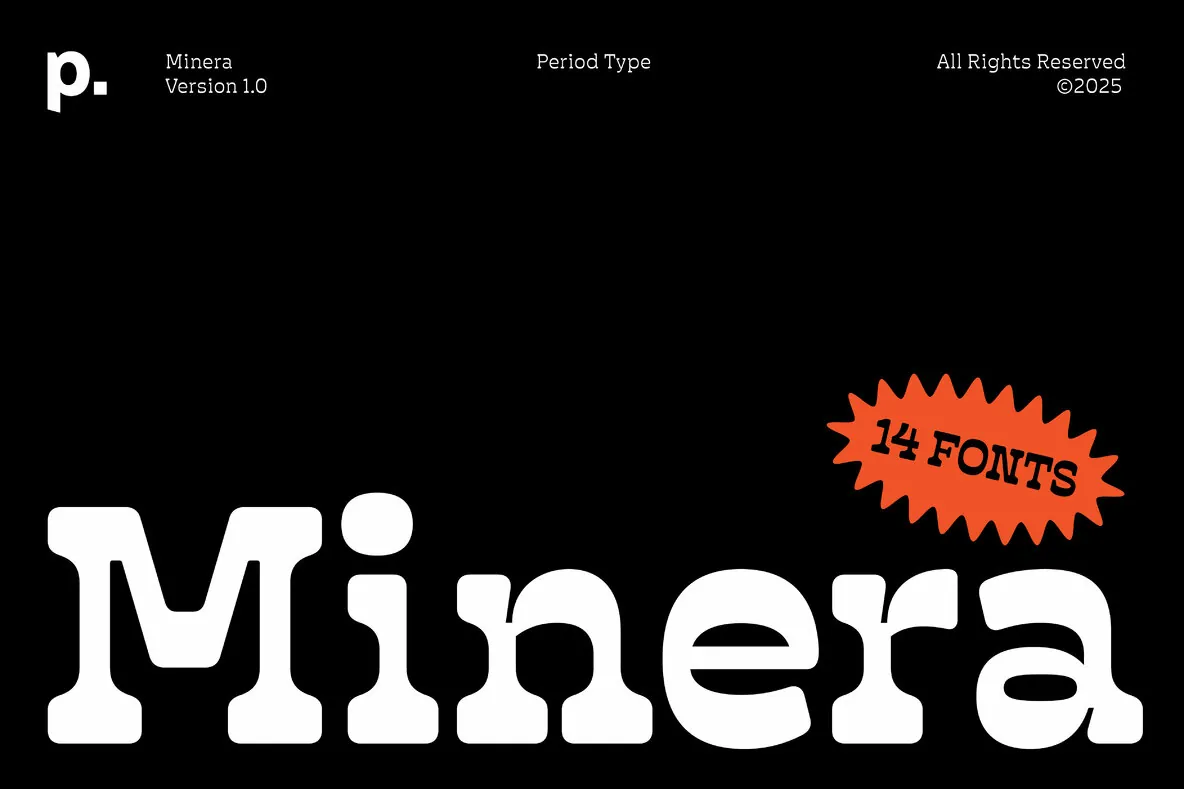
Minera Font
Minera: Dynamic Reverse-Contrast Slab Serif
Minera is a reverse-contrast slab serif designed to introduce a playful and engaging element to any design project. As a display typeface, it exudes a fun, friendly, and casual demeanor, making it perfect for branding, packaging, editorial layouts, and menus. Its distinct appearance guarantees that your message will command attention.
Minera is designed for a global audience, supporting 278 languages, which makes it versatile for multilingual projects. Whether crafting a bold brand identity or creating an engaging headline, Minera offers both impact and charm with its playful yet assured style.